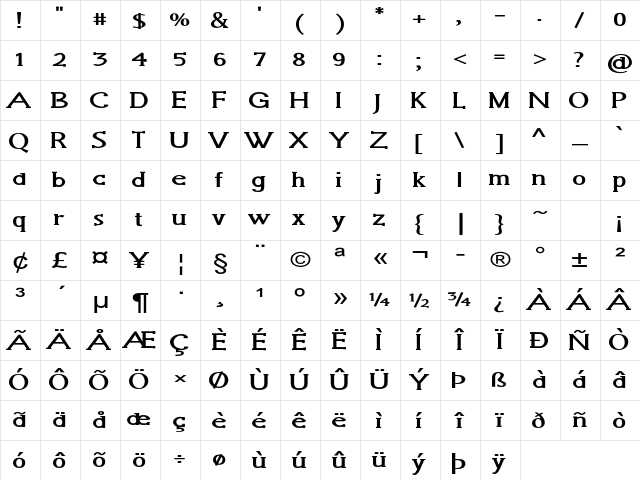
Grackle Expanded Bold
Style: Expanded Bold
Grackle Family
Grackle Expanded Bold
Design Context for Grackle
Grackle is a composed and adaptable typeface that performs quietly and consistently across a wide range of design contexts. Its bold stroke weight gives it real presence on the page.